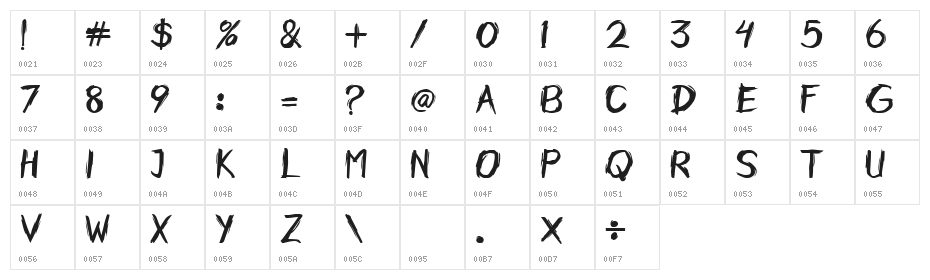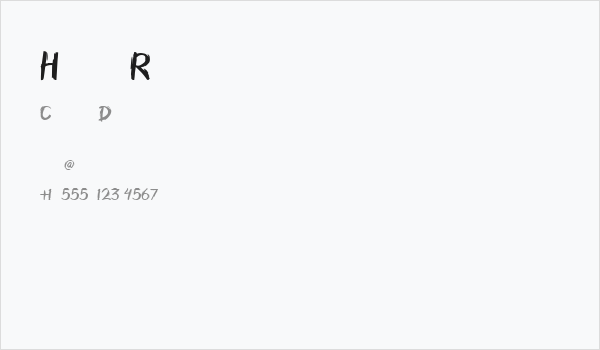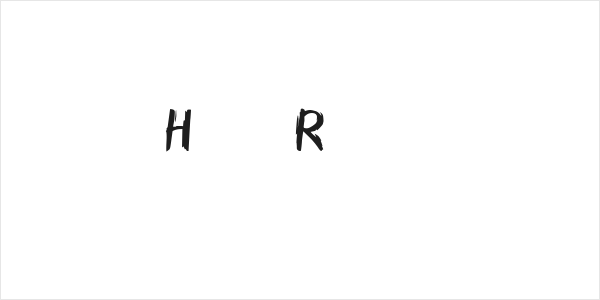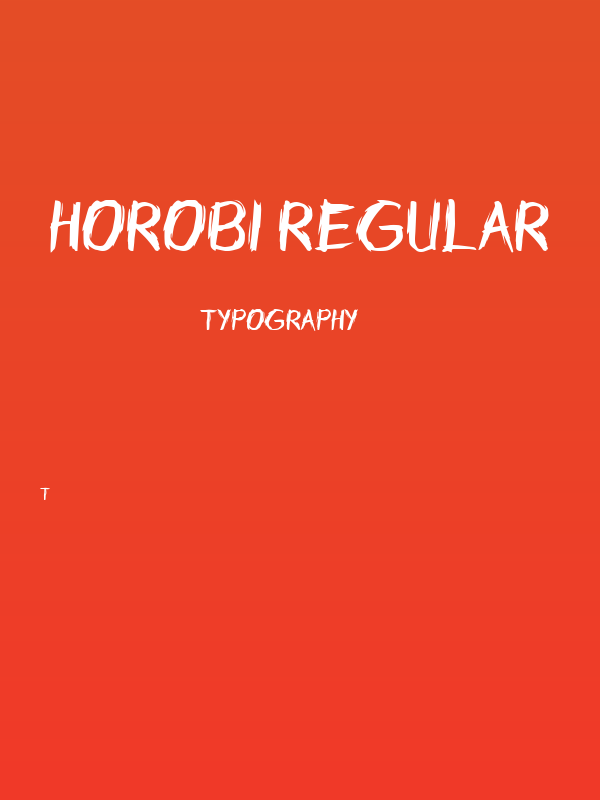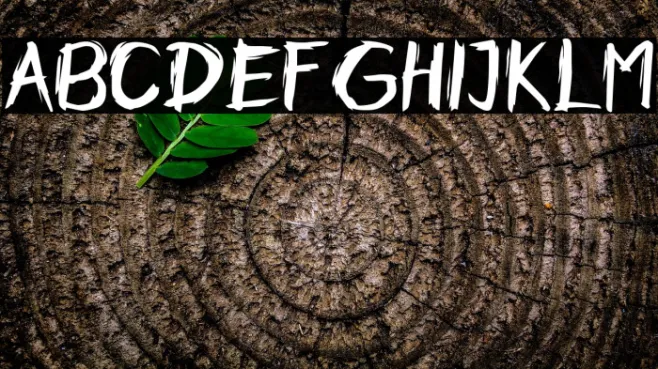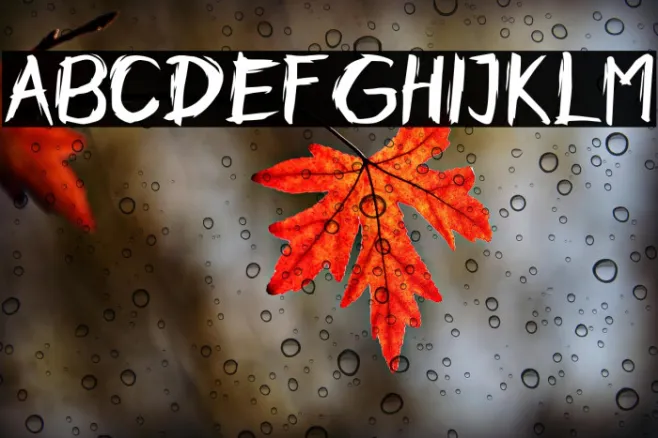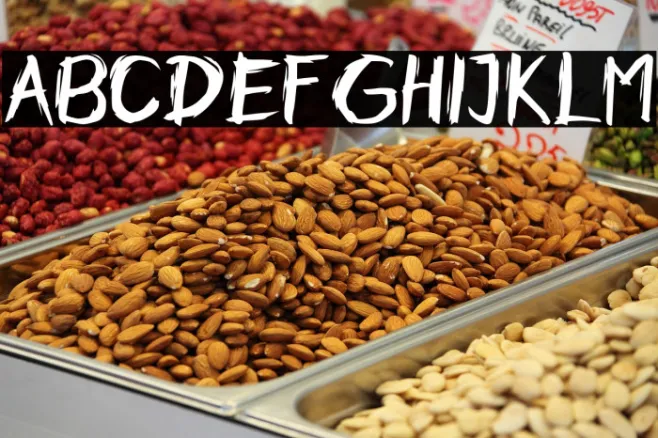
Horobi Regular Font
Horobi Regular Description
This font features a bold and dynamic brushstroke style, giving it a hand-painted appearance. The characters are slightly irregular, adding to the organic and artistic feel. The strokes are thick with varying widths, creating a sense of movement and energy. This font is highly expressive, making it suitable for designs that require a strong visual impact. The uppercase and lowercase letters maintain a consistent style, while the numerals and special characters complement the overall aesthetic. The font's unique character makes it ideal for creative projects that aim to capture attention.
| Proposed Projects | Ideal for posters, album covers, branding, and any project requiring a bold, artistic touch. |